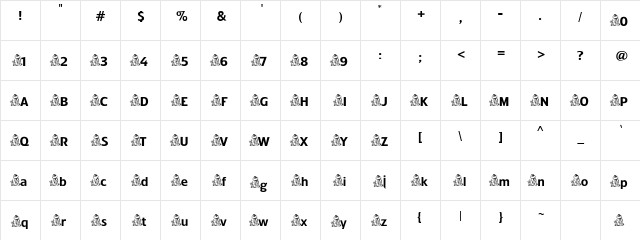
CoolFatCat Regular
Design Context for CoolFatCat Typeface
CoolFatCat is a composed and adaptable typeface that performs quietly and consistently across a wide range of design contexts.